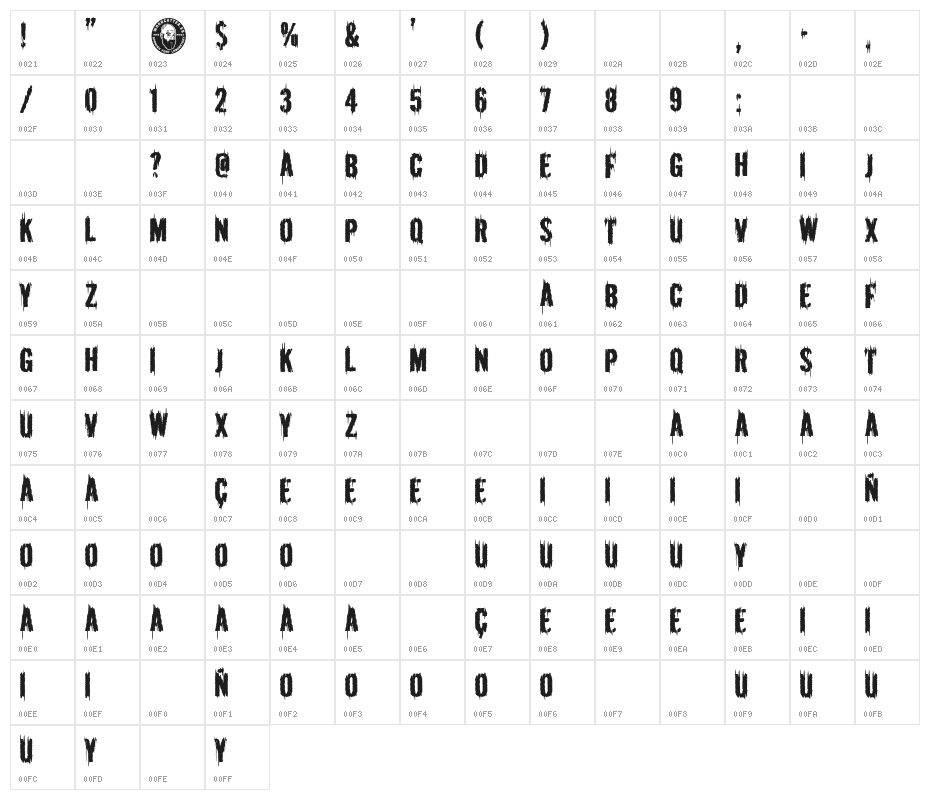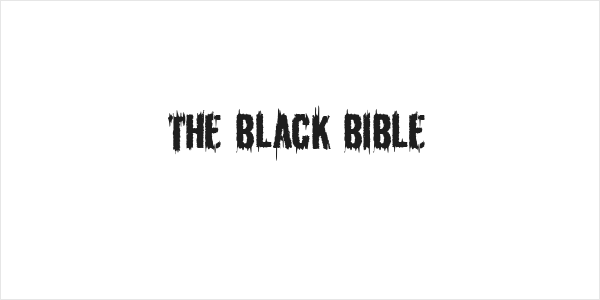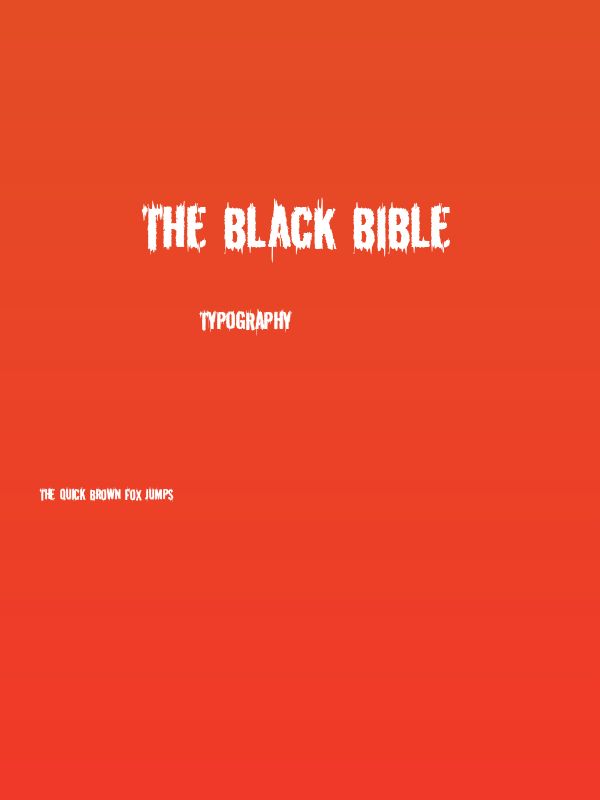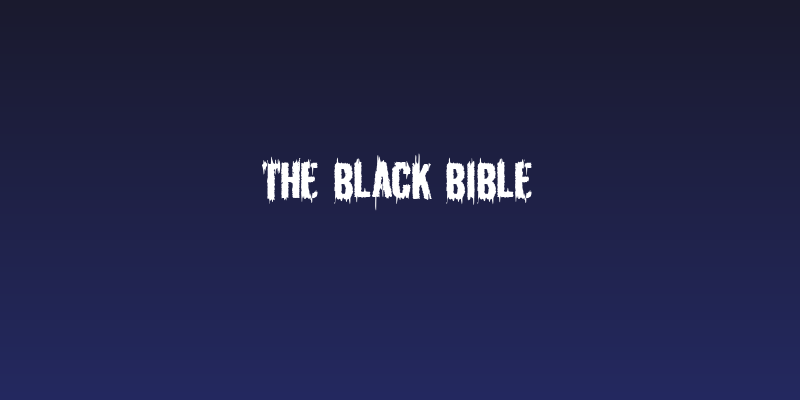
The Black Bible Font
The Black Bible Description
This font features a rugged, distressed style that evokes a sense of mystery and intensity. The characters appear as if they are weathered or eroded, with jagged edges and uneven strokes that create a dramatic and bold appearance. The uppercase and lowercase letters maintain a consistent height, while the numbers and special characters follow the same distressed theme. This font is ideal for projects that require a strong, impactful visual presence, such as horror-themed designs, posters, or album covers. Its unique style makes it stand out, capturing attention with its raw and edgy aesthetic.
| Proposed Projects | Ideal for horror-themed designs, posters, album covers, and any project needing a strong visual impact. |